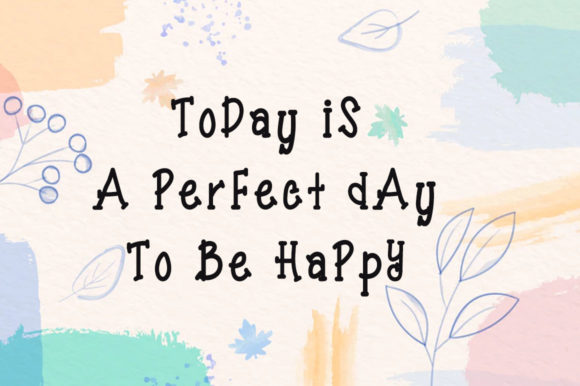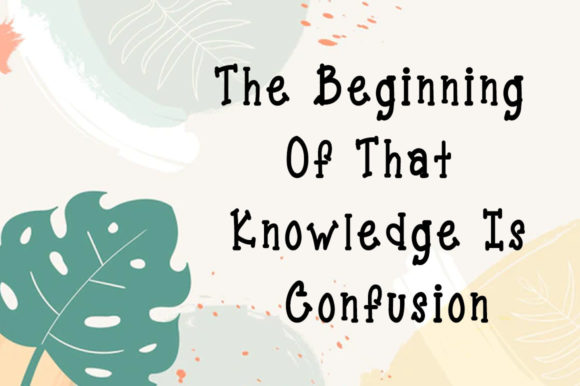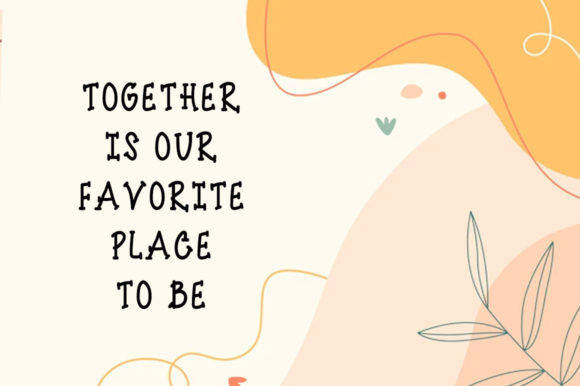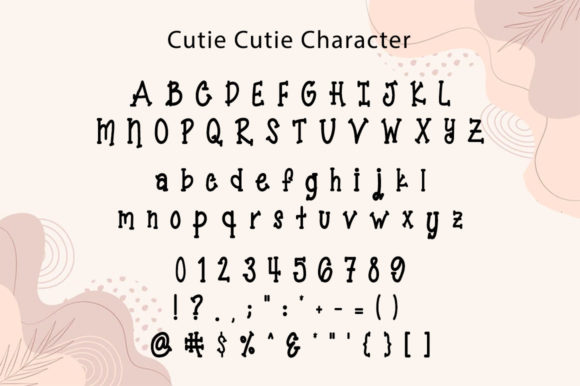
Introducing Cutie Cutie Font: The Ultimate Elegant and Dainty Handwritten Font
Are you a designer, crafter, or DIY enthusiast looking for a font that exudes elegance and delicacy? Look no further than Cutie Cutie Font, a beautiful handwritten font that features sweet and delicate swashes. This stunning font is perfect for a wide range of crafty ideas, from letterheads and titles to stationery, and is sure to add a touch of sophistication to any project.
What Makes Cutie Cutie Font So Special?
Cutie Cutie Font is an original and unique font that boasts an elegant and dainty design. Its sweet and delicate swashes add a touch of whimsy and playfulness, making it perfect for a variety of creative projects. Whether you’re looking to create a logo, heading, or title, Cutie Cutie Font is sure to impress. Its versatility and flexibility make it an excellent choice for designers and crafters who want to add a personal touch to their work.
Uses for Cutie Cutie Font
Cutie Cutie Font is incredibly versatile and can be used for a wide range of projects, including:
- Logos: Create a stunning logo for your business or brand with Cutie Cutie Font.
- Headings: Add a touch of elegance to your headings and titles with this beautiful font.
- T-shirts: Design custom t-shirts with Cutie Cutie Font for a unique and eye-catching look.
- Letterheads: Create professional-looking letterheads with this elegant font.
- Signage: Use Cutie Cutie Font for signage, banners, and posters to grab attention.
- Labels: Design custom labels with this font for a personal touch.
- News: Use Cutie Cutie Font for newspaper headings, titles, and articles.
- Posters: Create stunning posters with this beautiful font.
- Badges: Design custom badges with Cutie Cutie Font for a unique and personalized look.
Why Choose Cutie Cutie Font?
There are many reasons why Cutie Cutie Font stands out from the crowd. Here are just a few:
- Elegant and dainty design: Cutie Cutie Font features a beautiful, elegant design that is sure to impress.
- Sweet and delicate swashes: The font’s sweet and delicate swashes add a touch of whimsy and playfulness.
- Versatile: Cutie Cutie Font can be used for a wide range of projects, from logos and headings to stationery and signage.
- Easy to read: Despite its elegant design, Cutie Cutie Font is easy to read and understand.
- Unique: Cutie Cutie Font is an original and unique font that will set your project apart from the rest.
Tips for Using Cutie Cutie Font
Here are a few tips for using Cutie Cutie Font:
- Pair with other fonts: Cutie Cutie Font pairs well with other fonts, so feel free to experiment with different combinations.
- Use for headings: Cutie Cutie Font is perfect for headings and titles, but can also be used for body text.
- Experiment with colors: Try out different colors and color combinations to find the perfect look for your project.
- Pay attention to spacing: Make sure to pay attention to spacing and kerning to ensure that your text looks professional and polished.
Cutie Cutie Font is a beautiful and elegant handwritten font that is perfect for designers, crafters, and DIY enthusiasts. Its sweet and delicate swashes add a touch of whimsy and playfulness, making it perfect for a wide range of creative projects. With its versatility, flexibility, and unique design, Cutie Cutie Font is sure to become a favorite in your font collection.